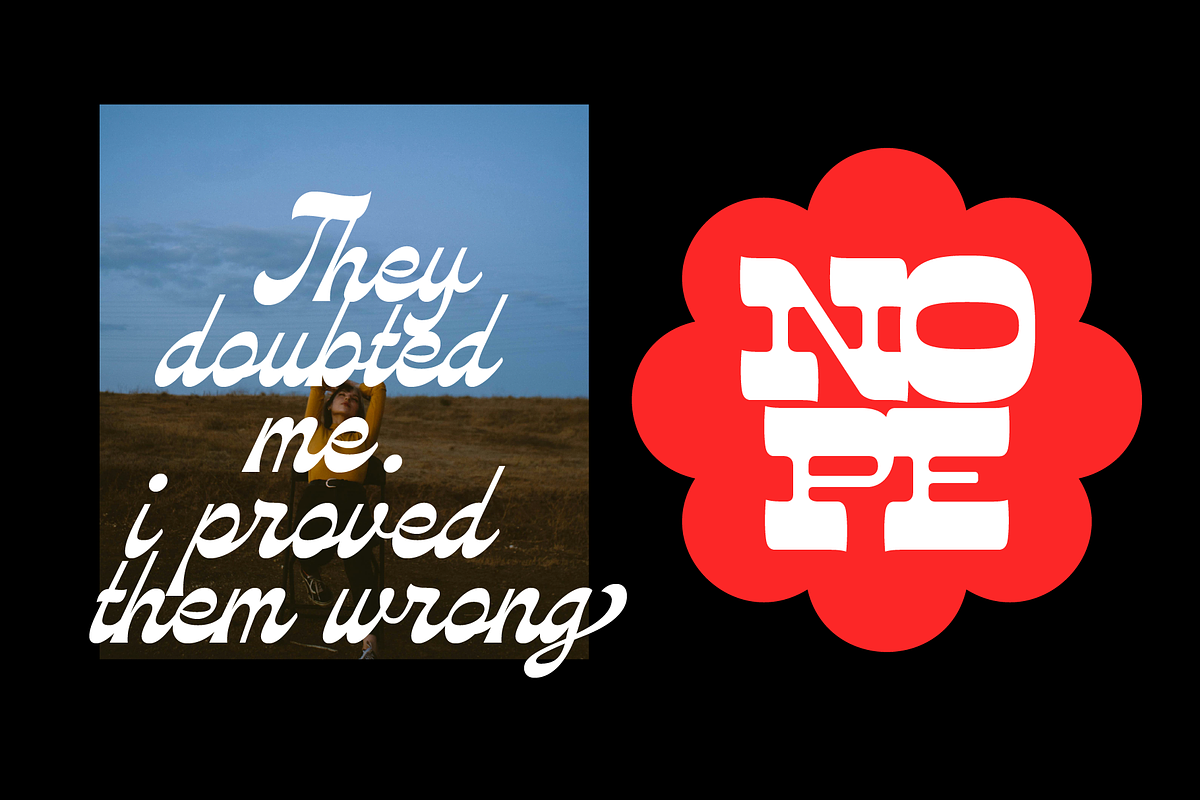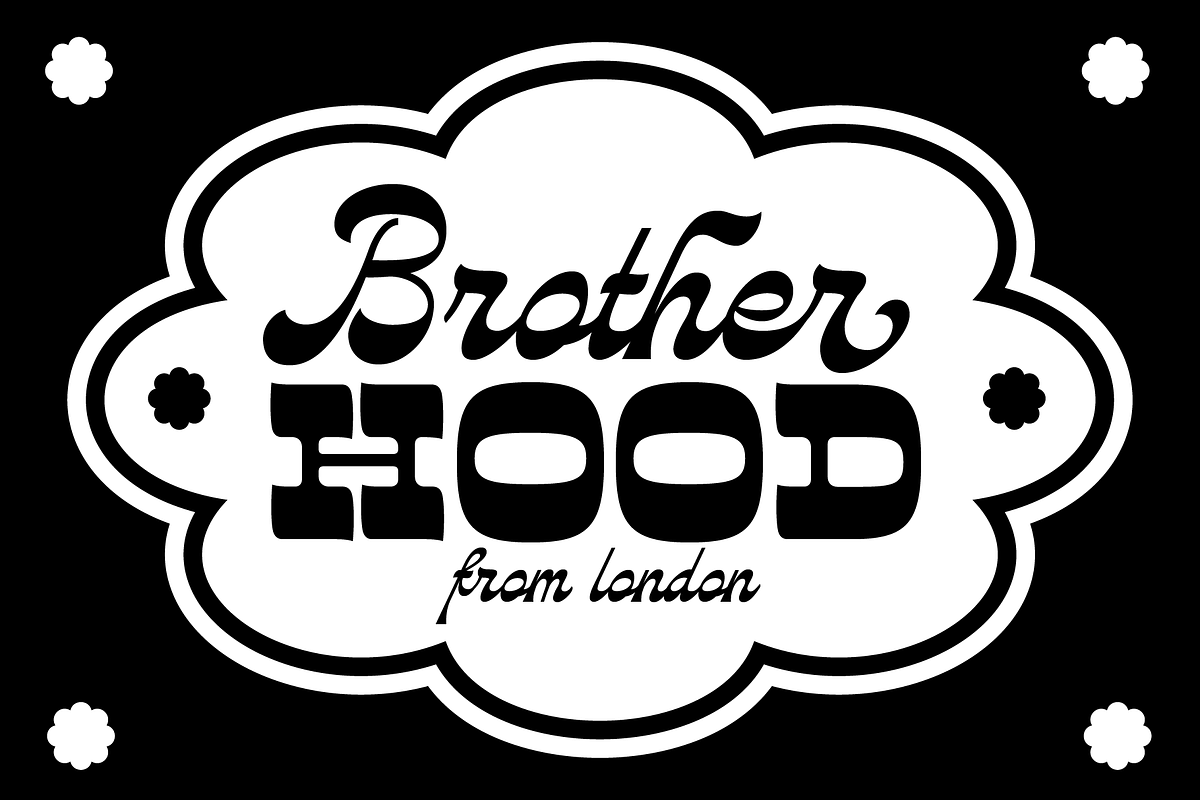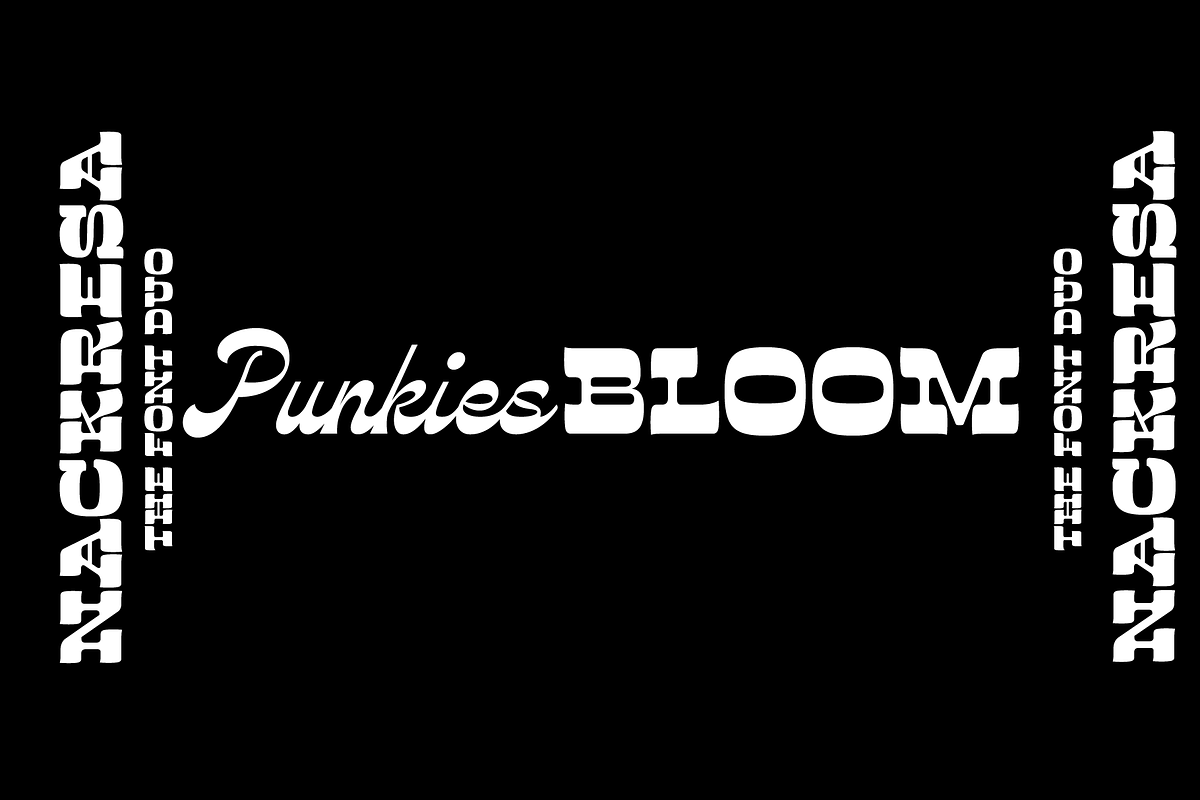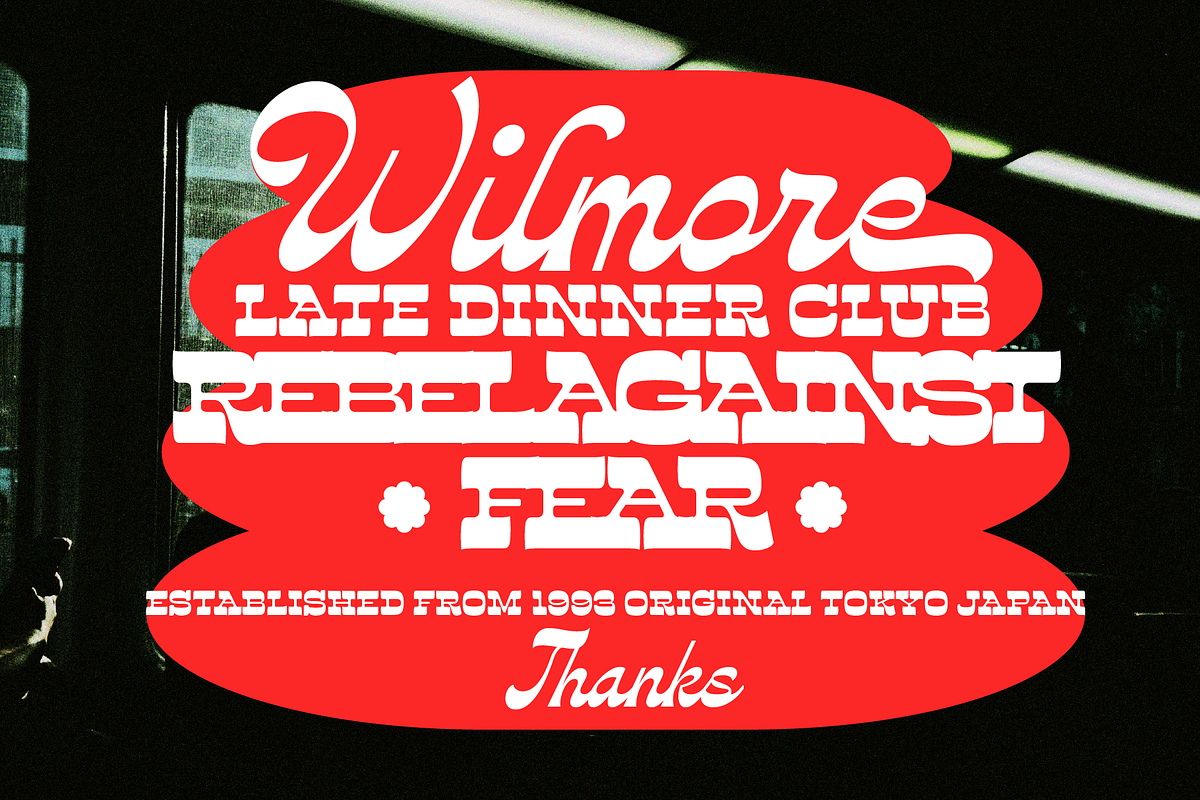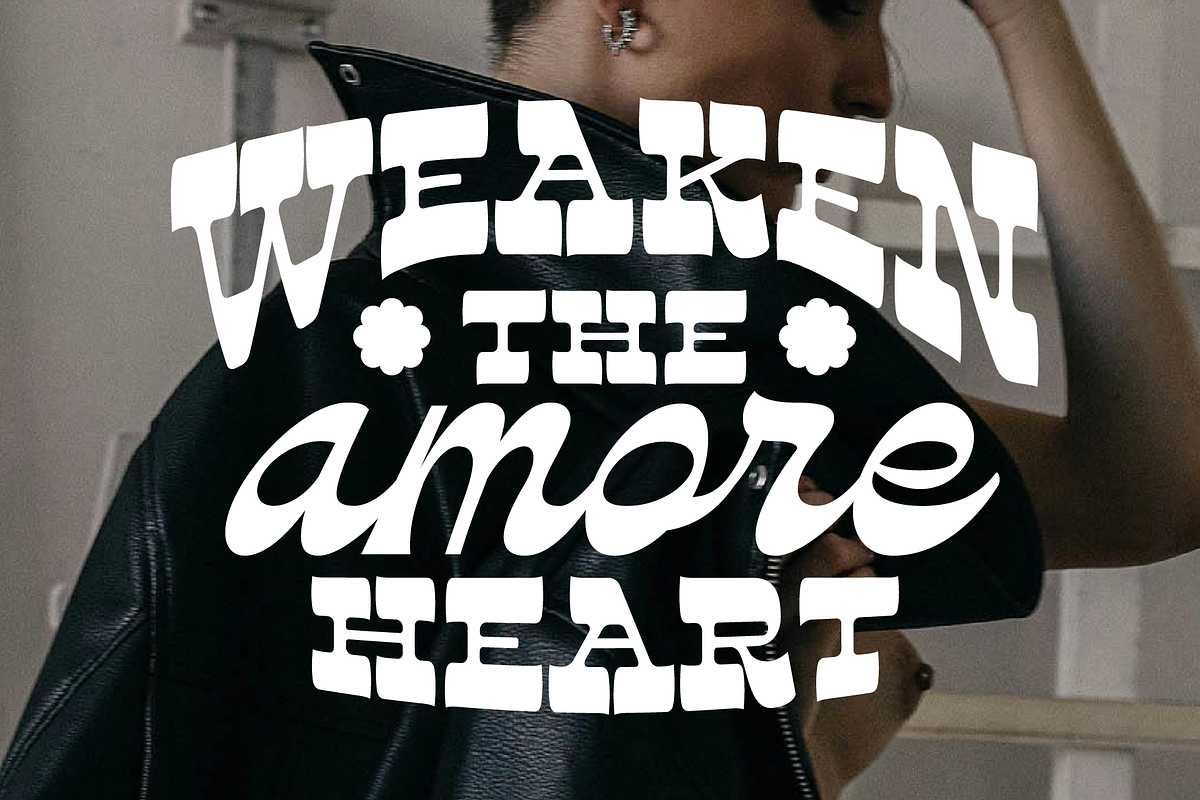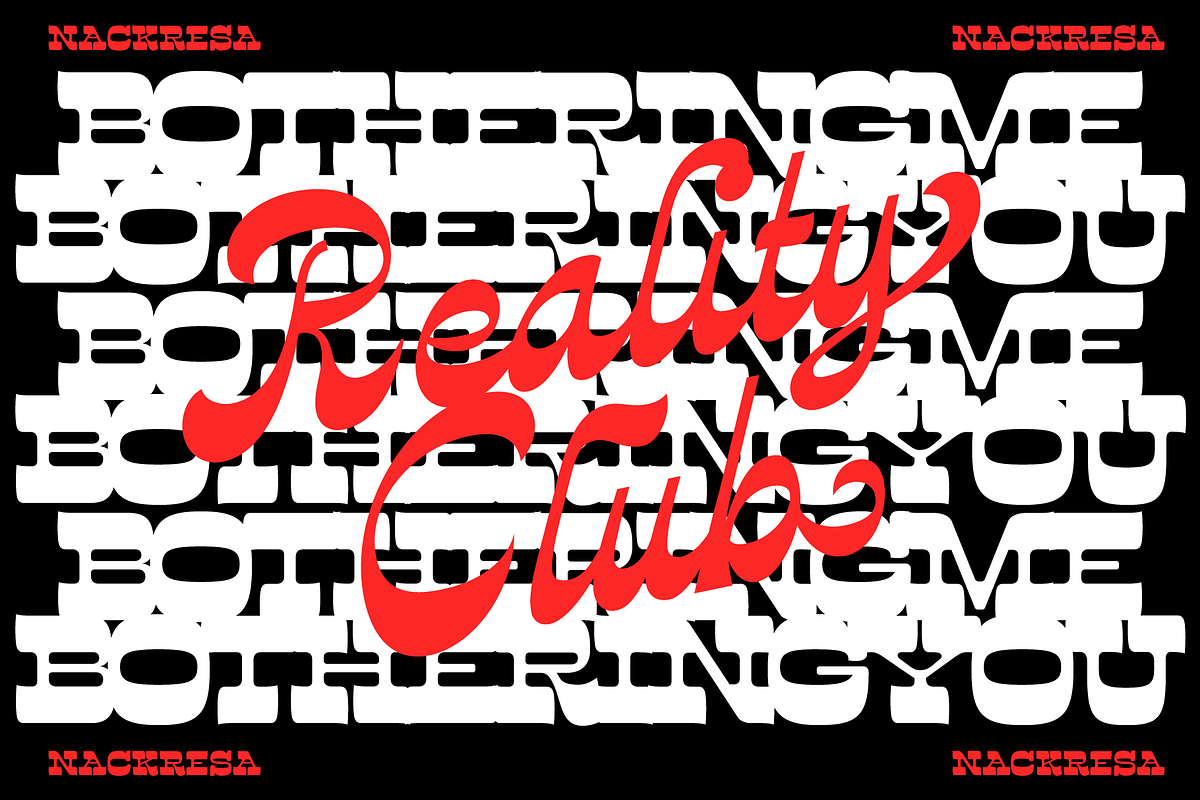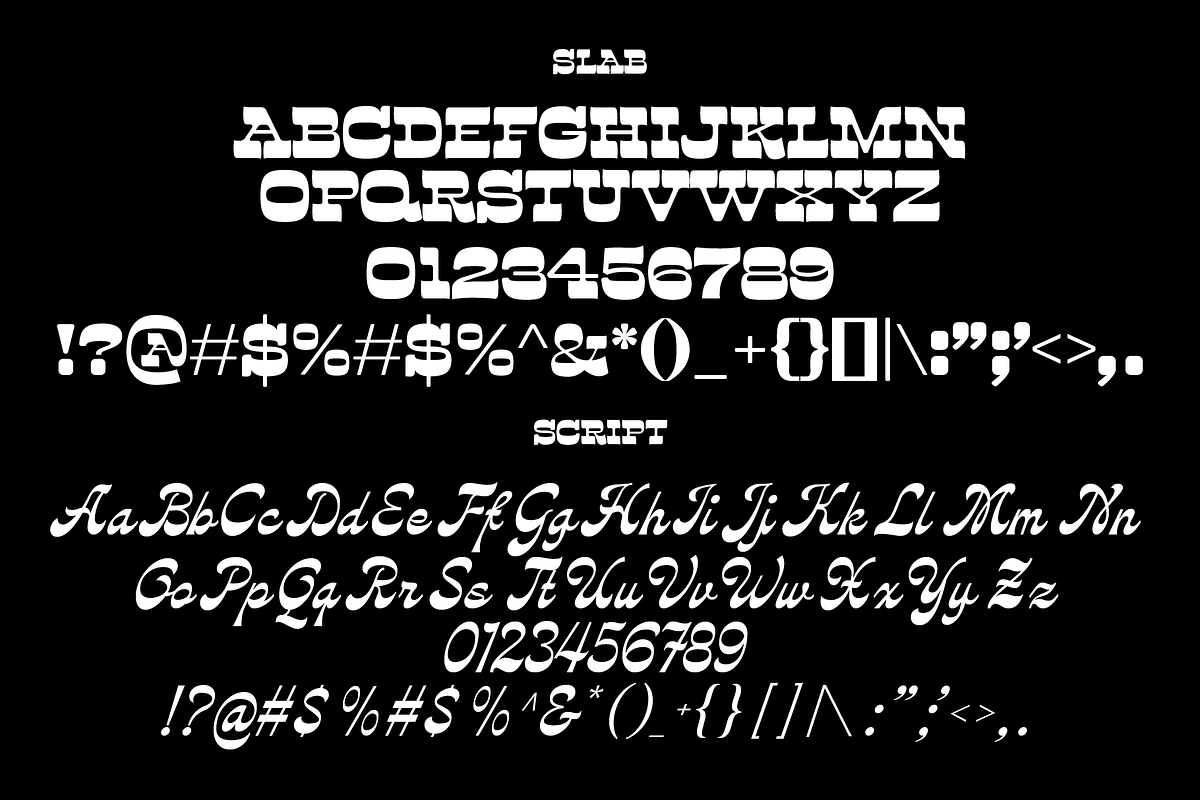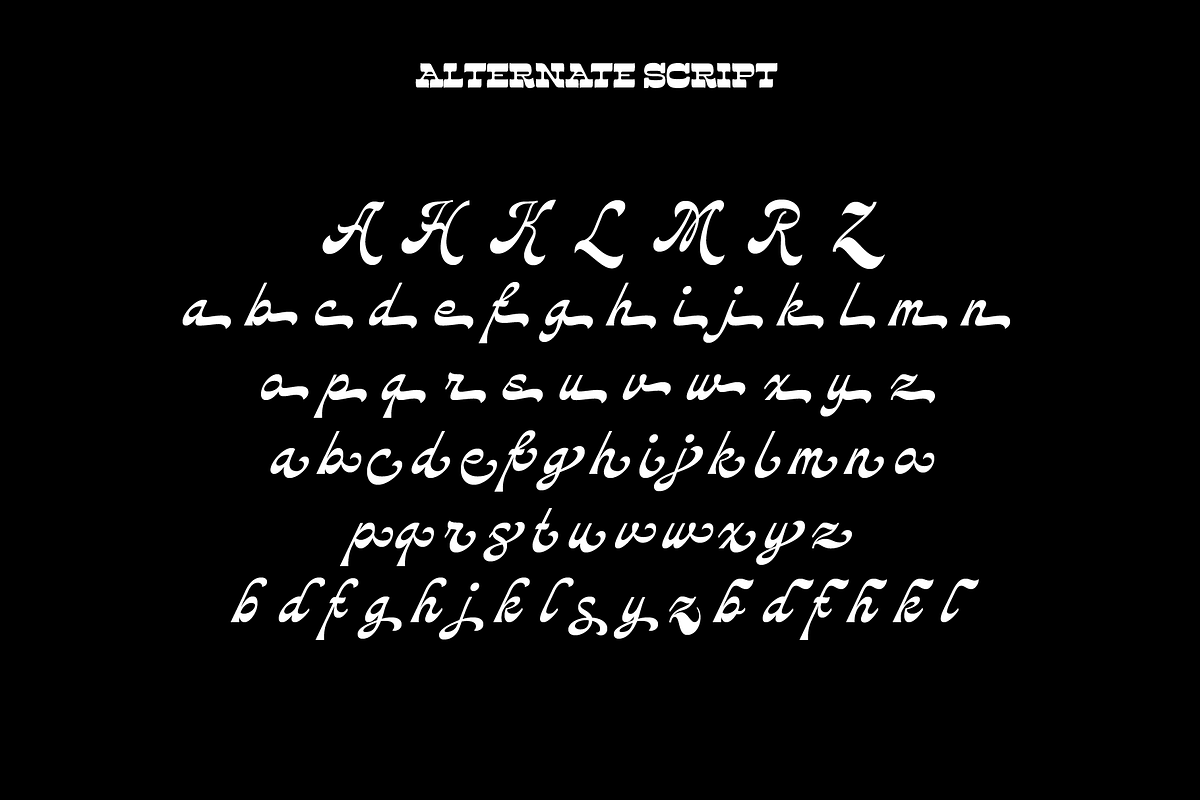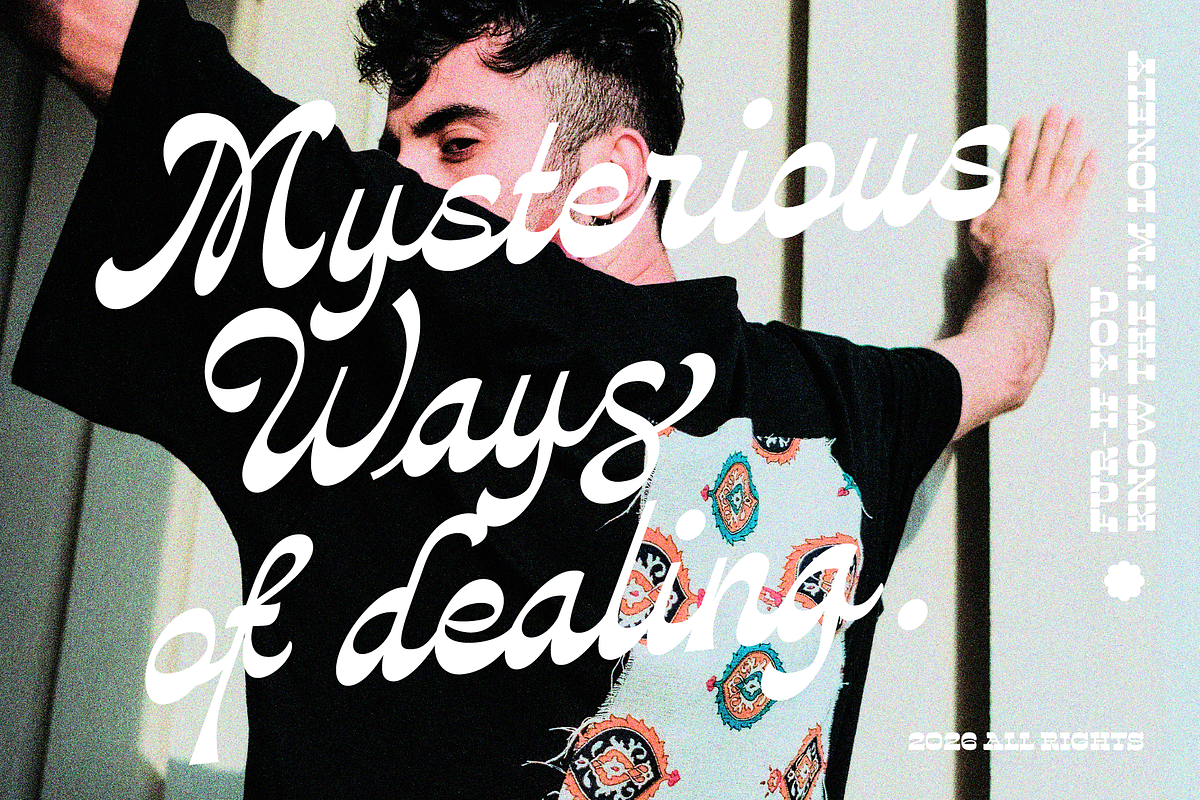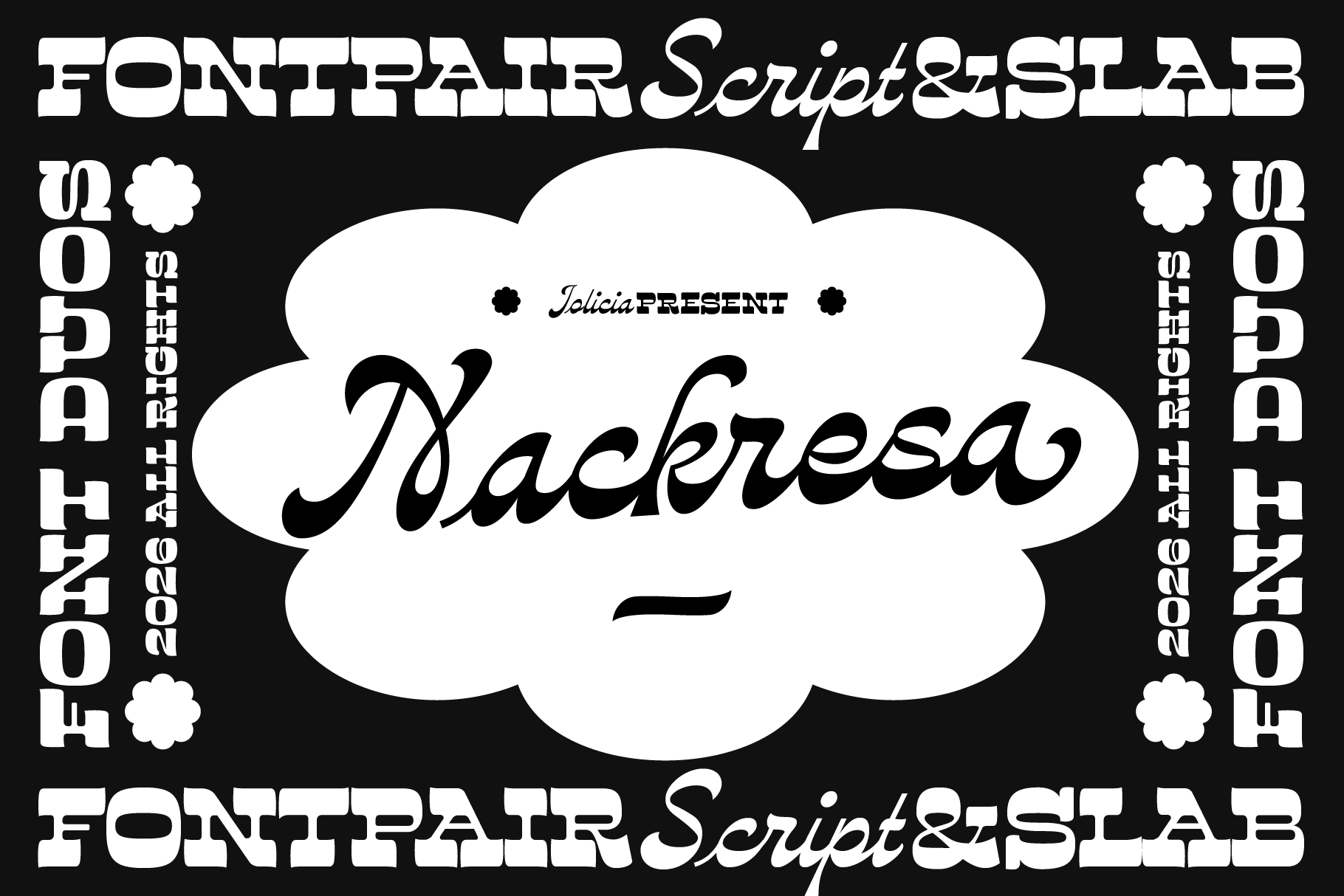
Nackresa | Font Duo
Nackresa is a bold and expressive font duo that combines reverse-contrast slab serif and elegant script into one powerful visual identity. Designed to balance structural strength with fluid expression, this typeface delivers a distinctive and memorable character. The slab serif style features a unique reverse-contrast design, creating an experimental, vintage-modern aesthetic with strong visual impact. Meanwhile, the flowing script adds a soft, personal, and artistic touch, bringing emotion and personality to every composition. With its strong contrast, refined details, and unmistakable identity, Nackresa is more than just a font. it’s a visual statement for designers who want to be bold, expressive, and unapologetically original.